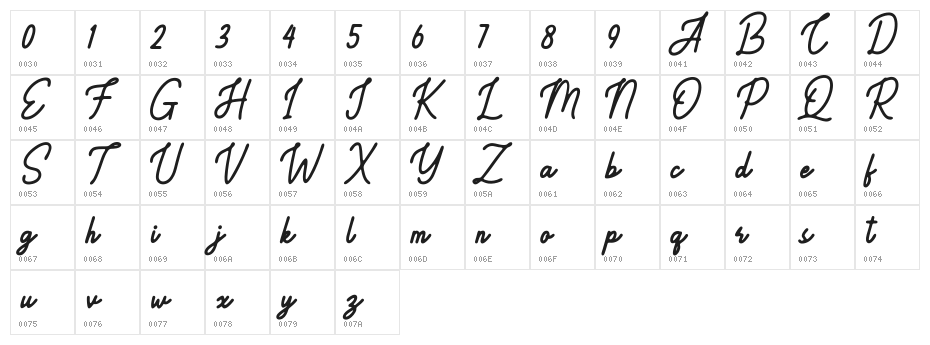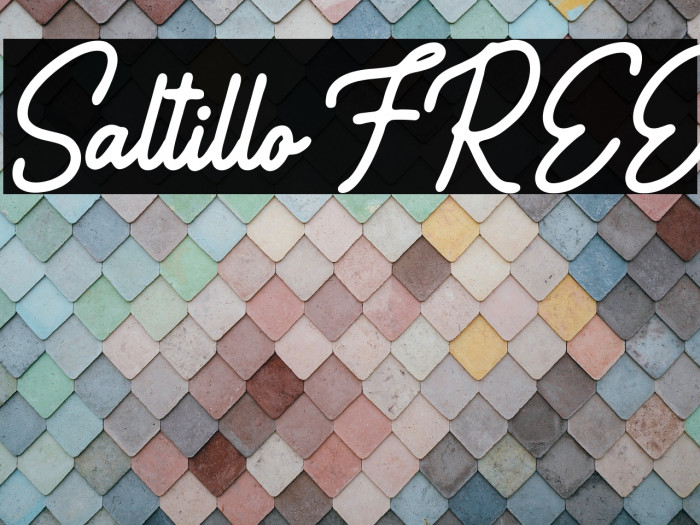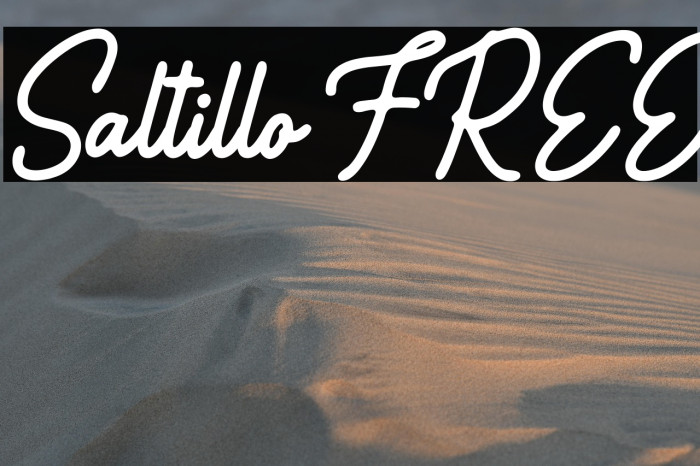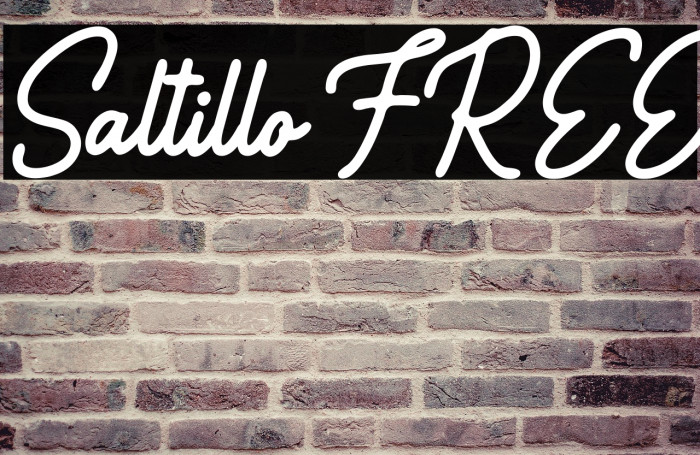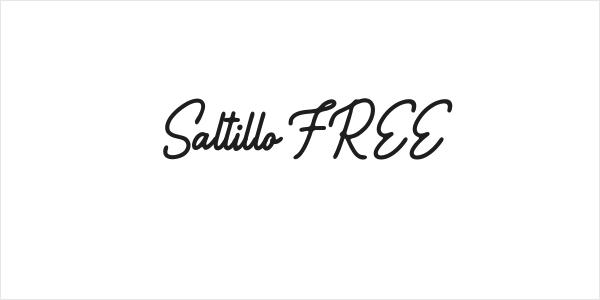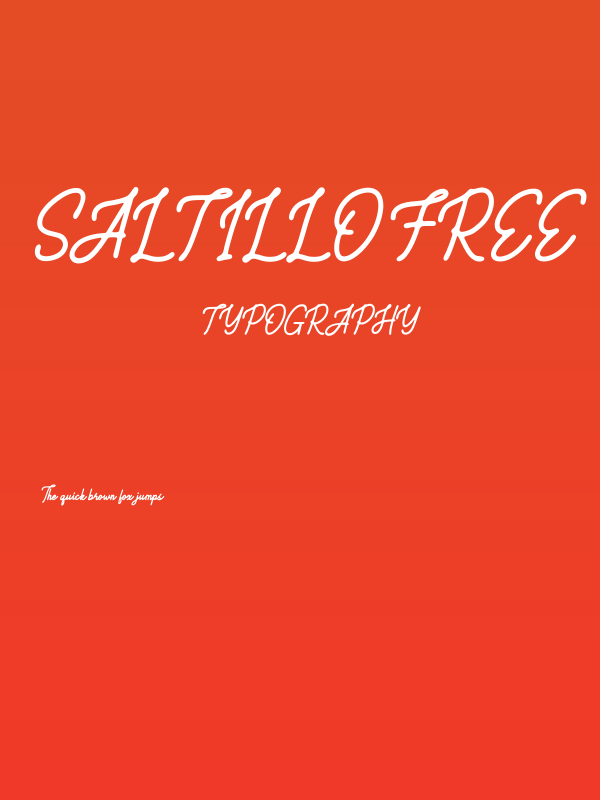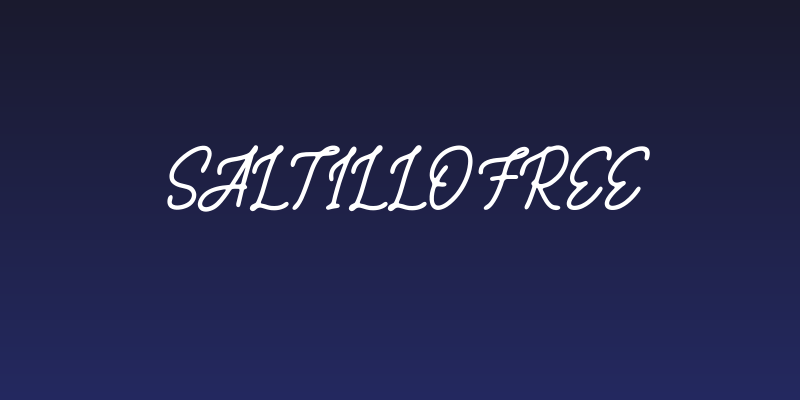
Saltillo FREE Font
Saltillo FREE Description
This font features a flowing, cursive script style that exudes elegance and sophistication. The uppercase letters are gracefully connected, creating a seamless and fluid appearance. The lowercase letters maintain a consistent rhythm, with smooth curves and loops that enhance readability. The numerals are bold and slightly rounded, complementing the overall aesthetic. Special characters are thoughtfully designed to match the script's fluidity, ensuring a cohesive look across all text. This font's style is both classic and versatile, making it suitable for a variety of design applications.
| Use Case | Logos, Invitations, Decorative Text |
| Proposed Projects | Ideal for wedding invitations, elegant branding, greeting cards, and decorative signage. |